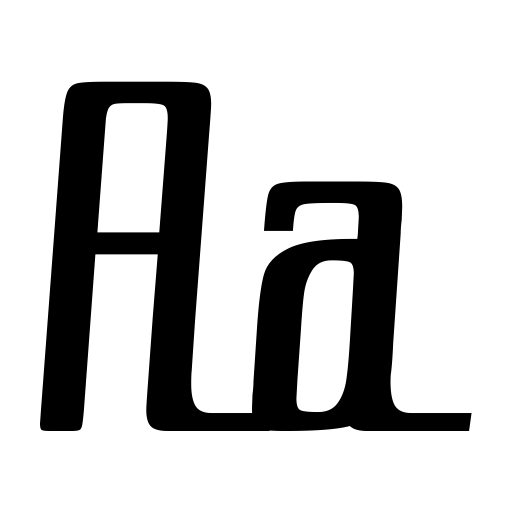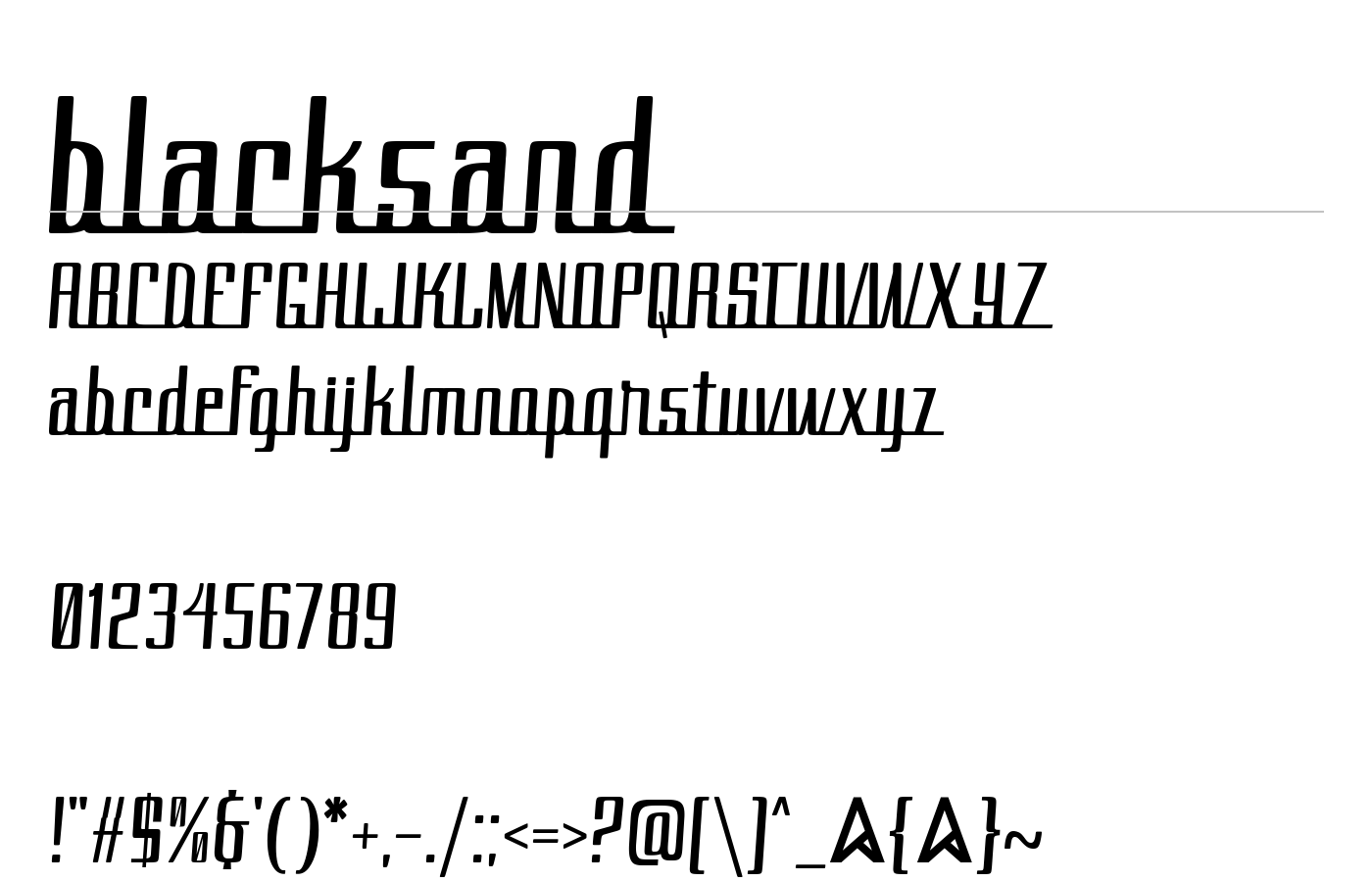
Blacksand is a narrow, condensed sans serif font with a tall x-height and a sleek, modern feel. Its strokes show medium contrast with sharp, angular edges and a quirky, slightly retro vibe in its unique letterforms and extended characters. This font works well for headlines, branding, and editorial projects that seek a stylish, distinctive, and contemporary look.
blacksand Font
About blacksand Font
| Font family | blacksand Font |
| Designer | I Made Dwi Putra Yoga |